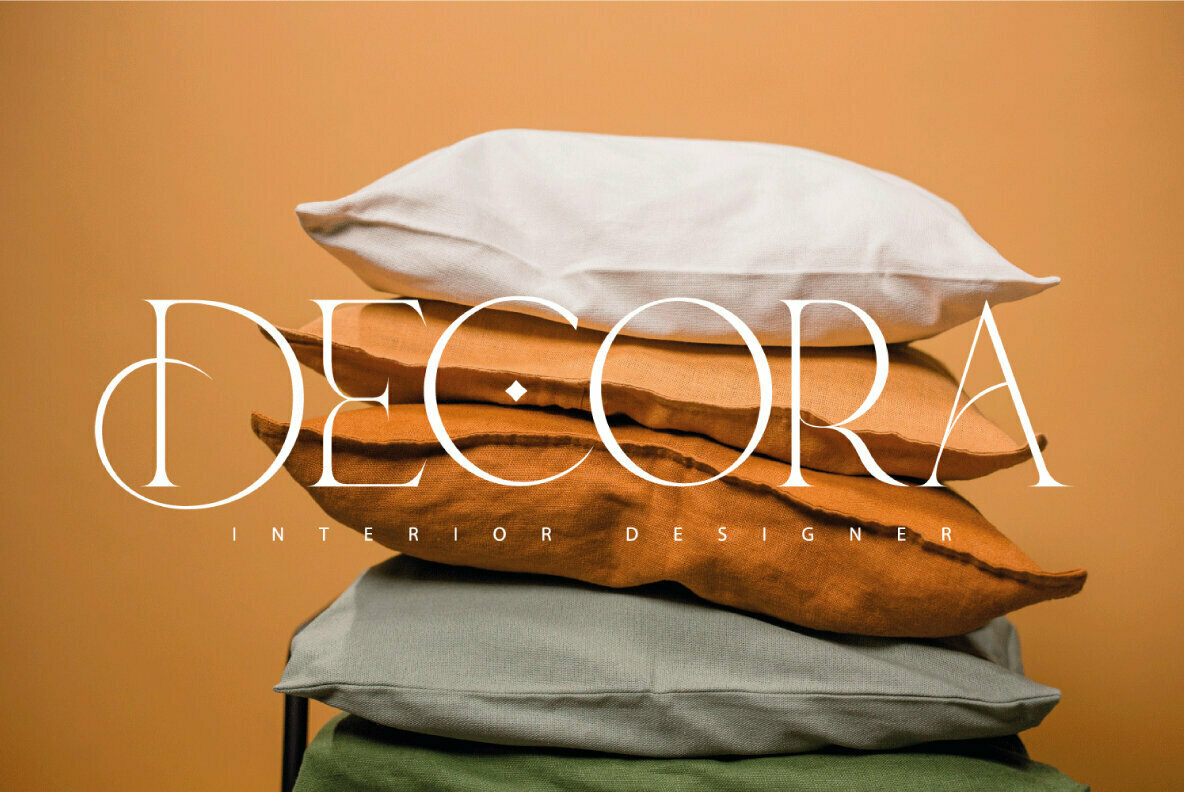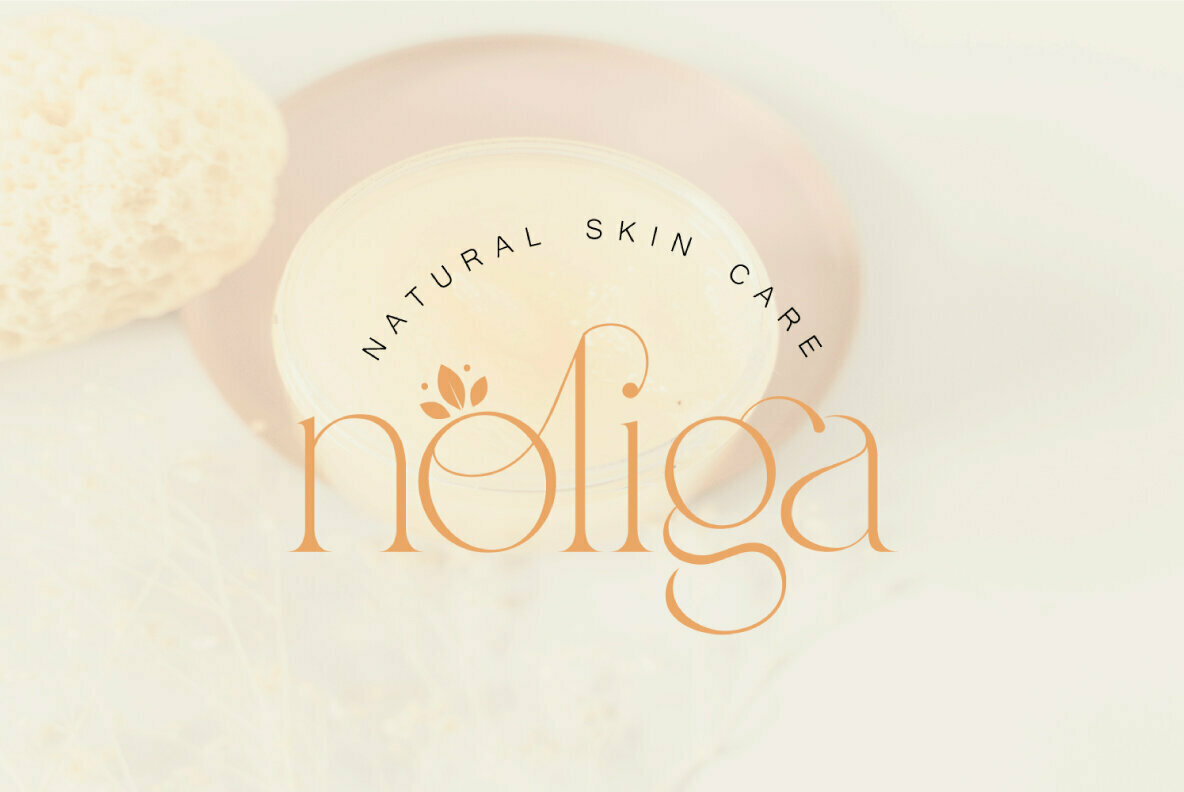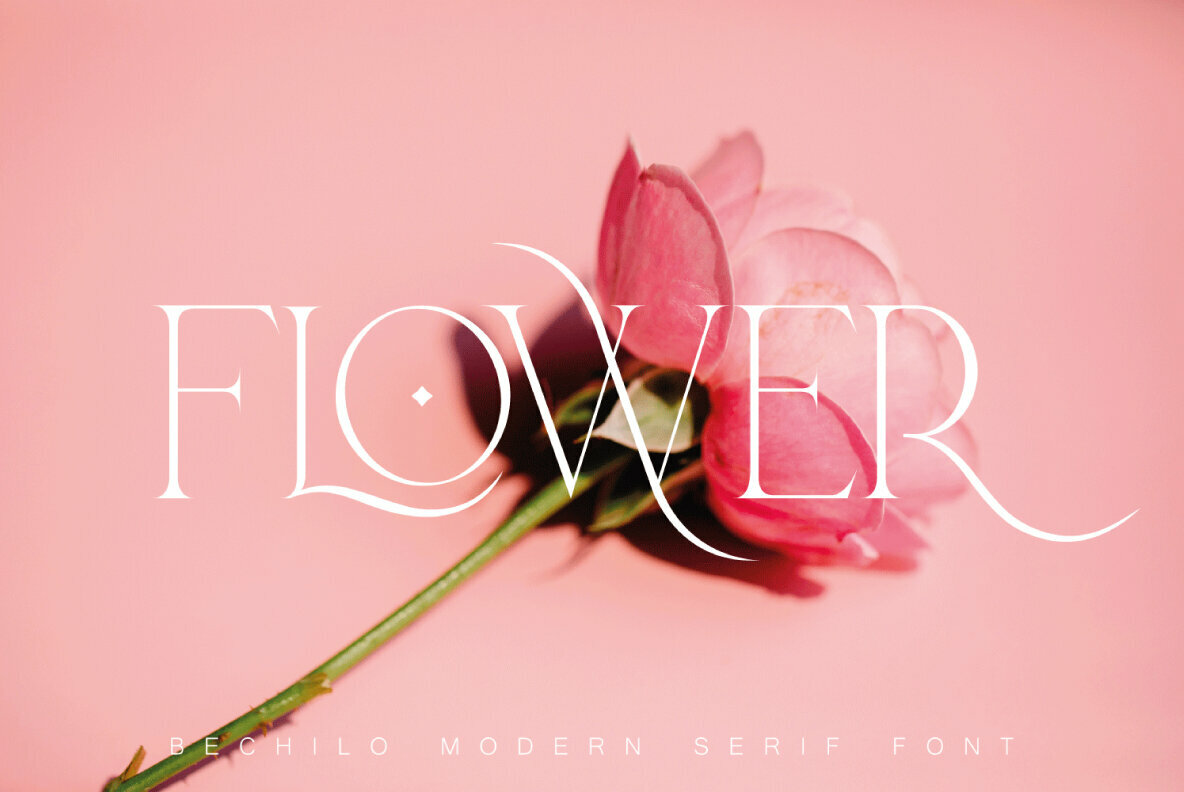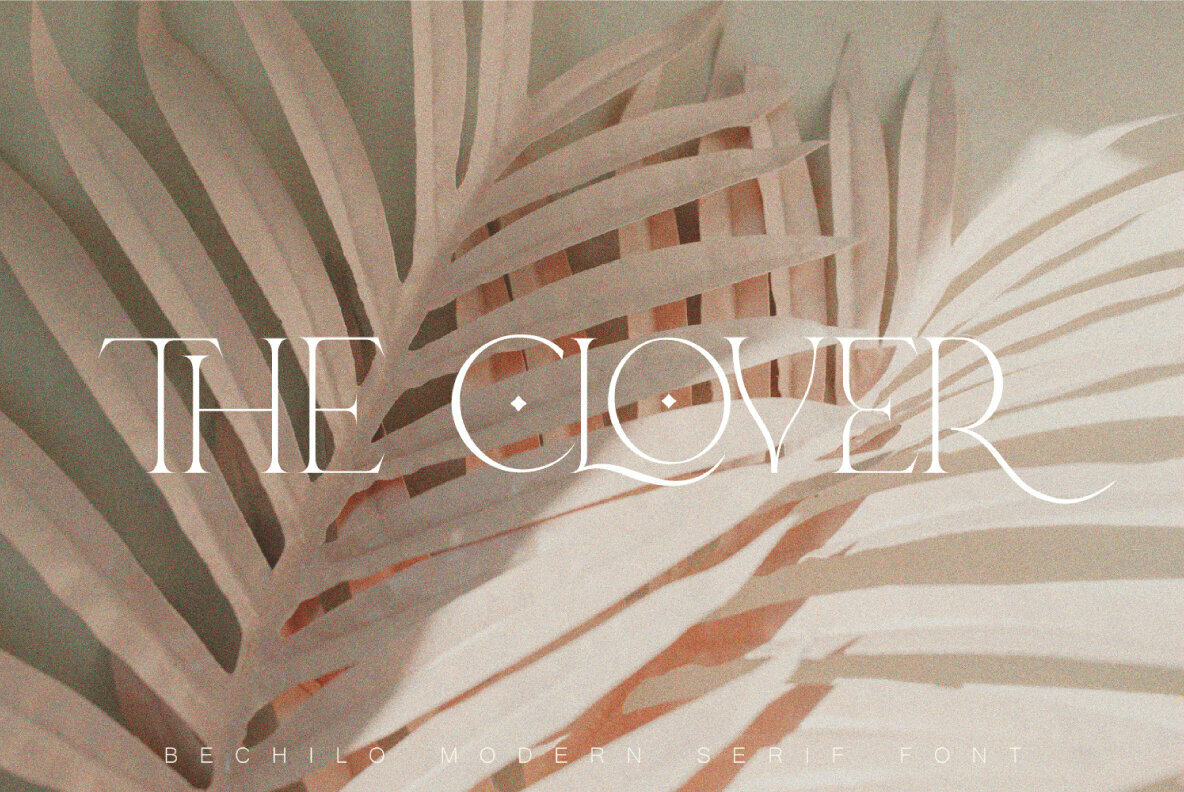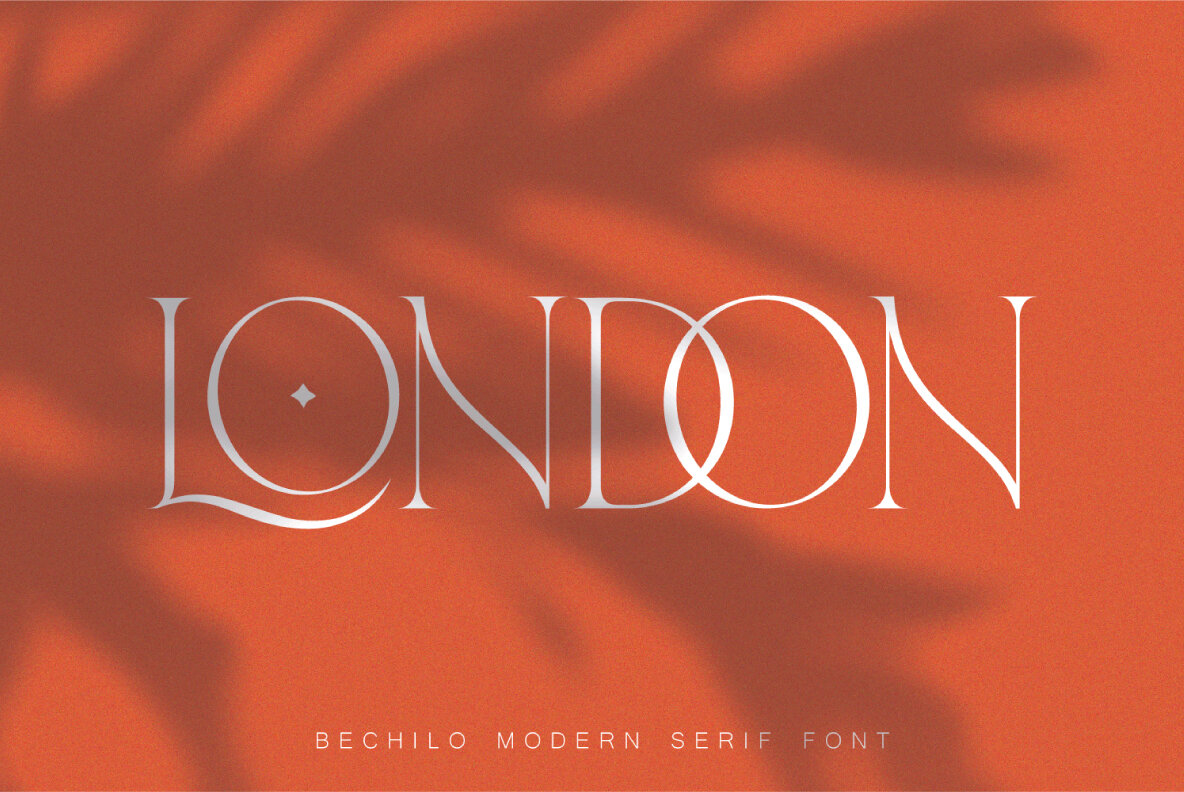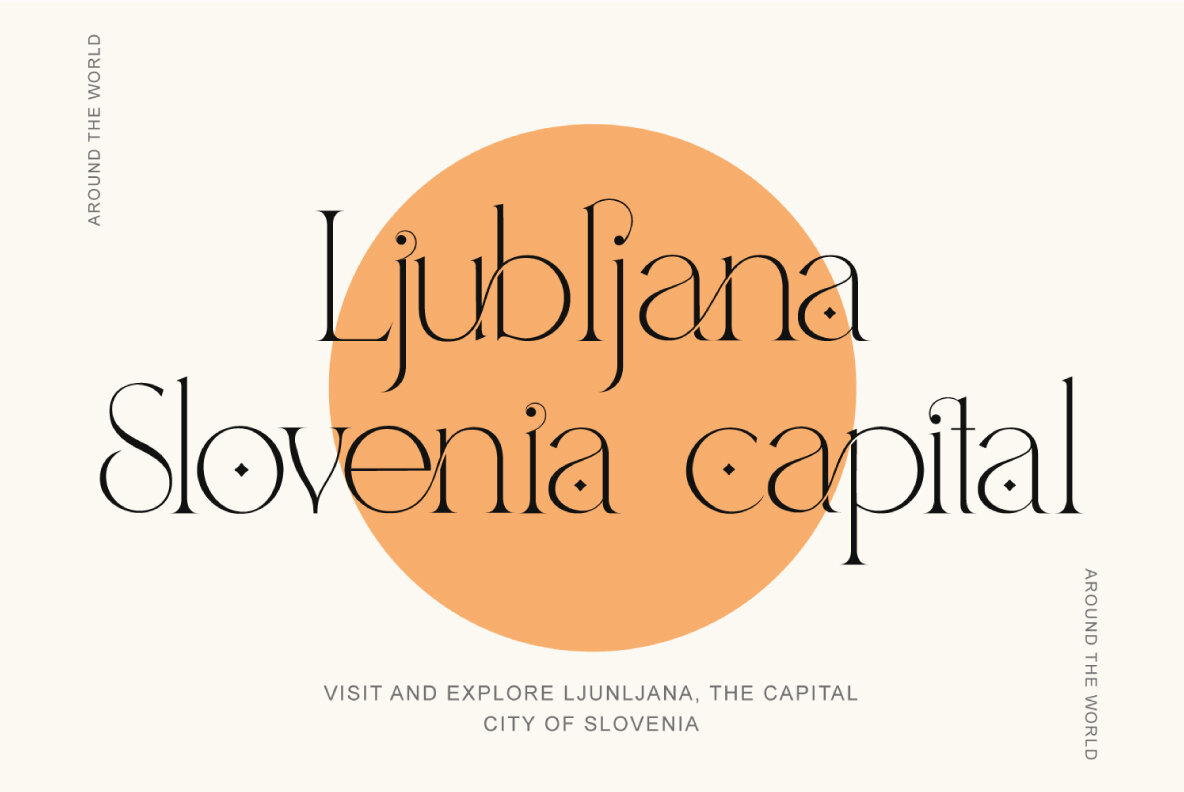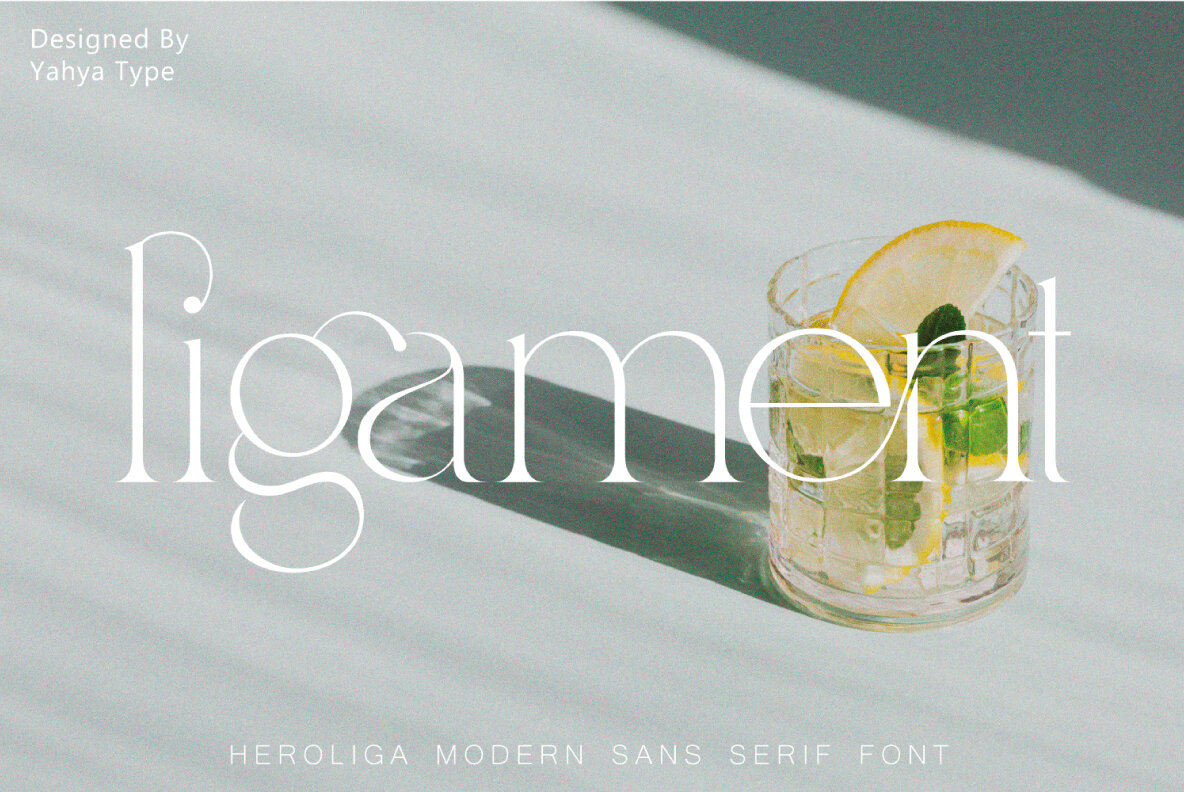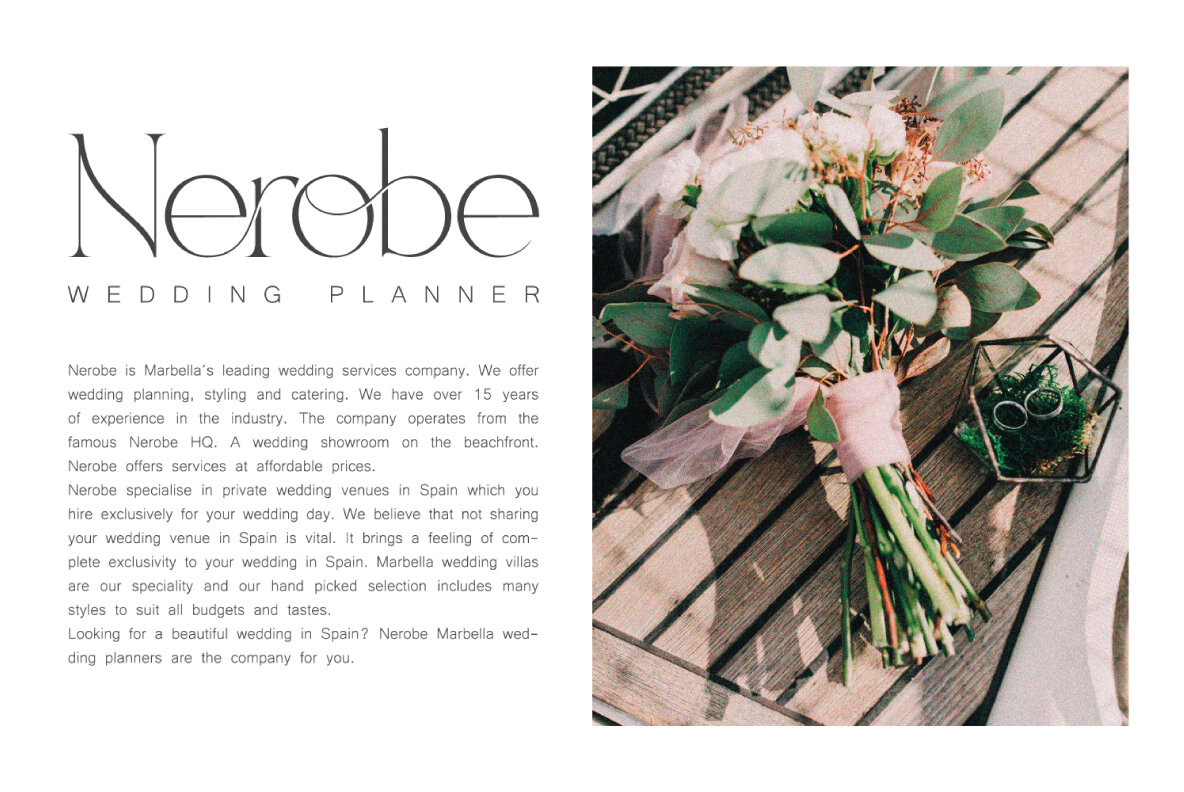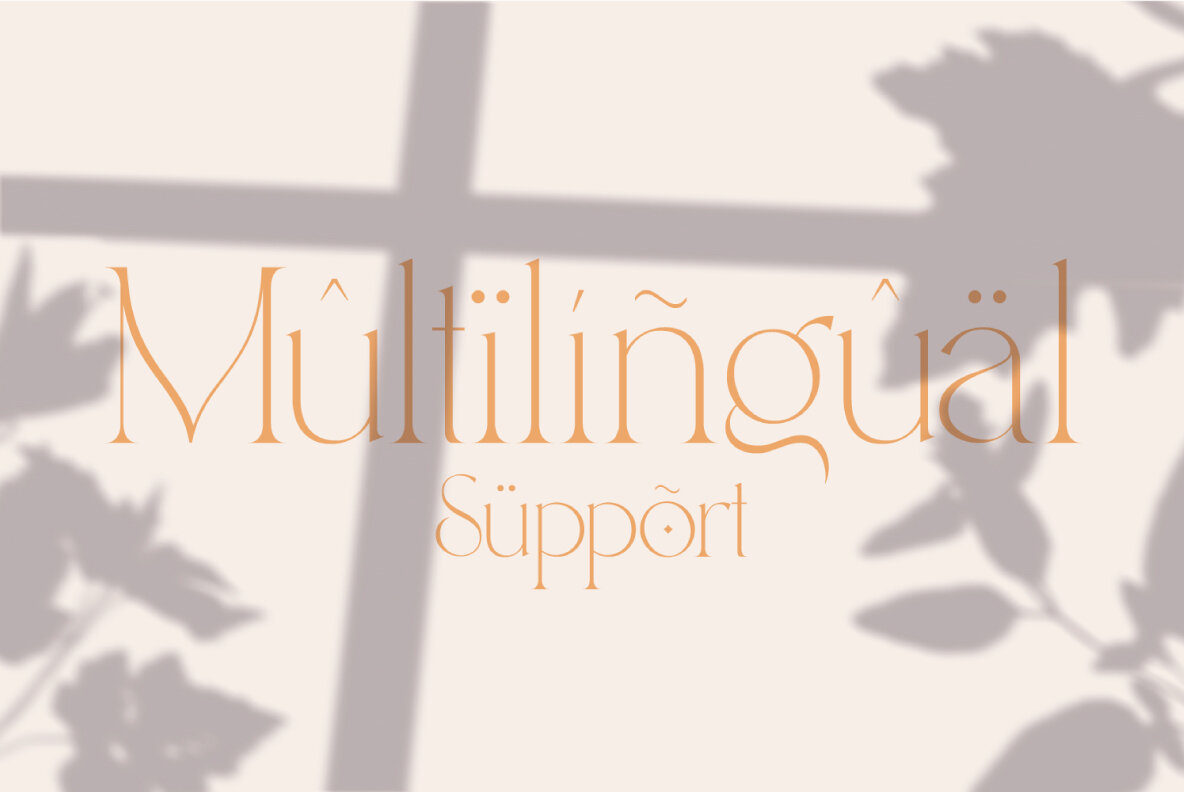
Bechilo is a beautiful and unique serif font that embodies charm and elegance in every letter. It beautifully combines a vintage look with a modern flair, and it would make a wonderful impact on each of your projects! Bechilo - this style works well for branding projects, gorgeous wedding invitations, beautiful stationary art, eye-catching social media posts, logo and much more...
- Uppercase & lowercase letters.
- Numbers.
- Punctuation Ligature & Huge Stylistic alternate.
- Multilingual support.